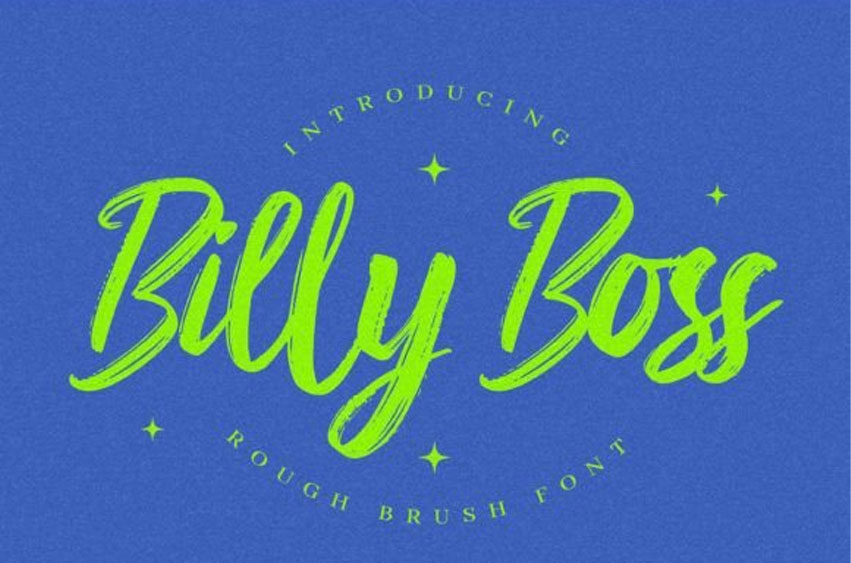
Billy Boss Font
Billy Boss Font is a rough brush display font featuring a naturally textured style and clear, dramatic movement.
Billy Boss is great for your next creative projects such as logos, printed quotes, invitations, cards, product packaging, headers, invitation, advertisements, product designs, stationery, wedding designs, labels, product packaging, special events, or anything that needs handwriting taste.